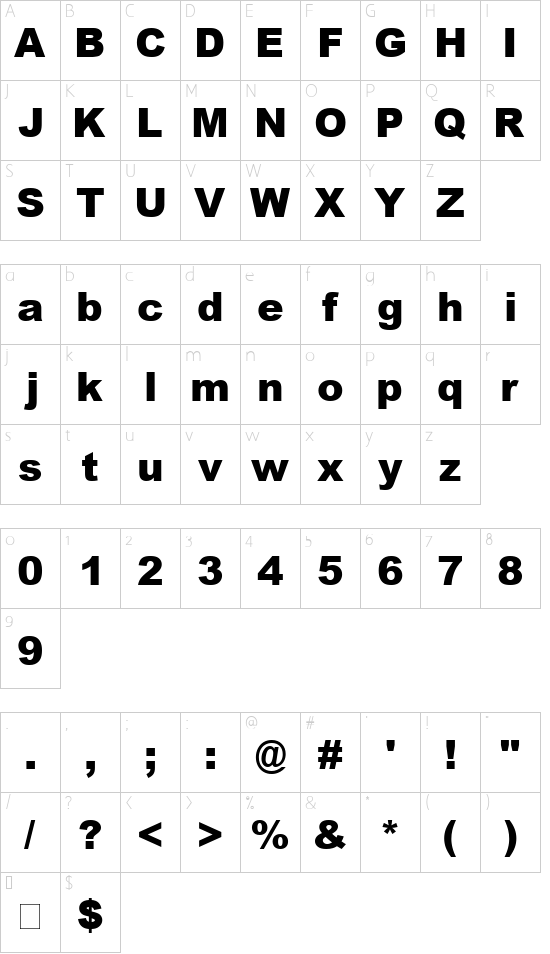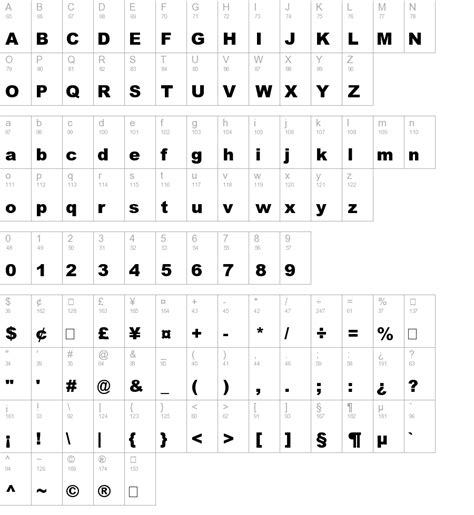
Font Alphabet Styles Arial Black
Web arial black is part of the extremely versatile arial typeface family which can be used with equal success for text setting in reports, presentations,. Web arial black fonts free download. You can find more information about. You can use this arial black font for almost any personal design purpose. Detailed information on the arial black font: Arial black is a black truetype font. Web arial black is part of the extremely versatile arial typeface family which can be used with equal success for text setting in reports, presentations,. 18 users have given the font a rating of 4.44 out of 5. It has been downloaded 8307 times. Web the arial black font is one of the most gorgeous typefaces in the true arial font family. Web download the arial black free font.